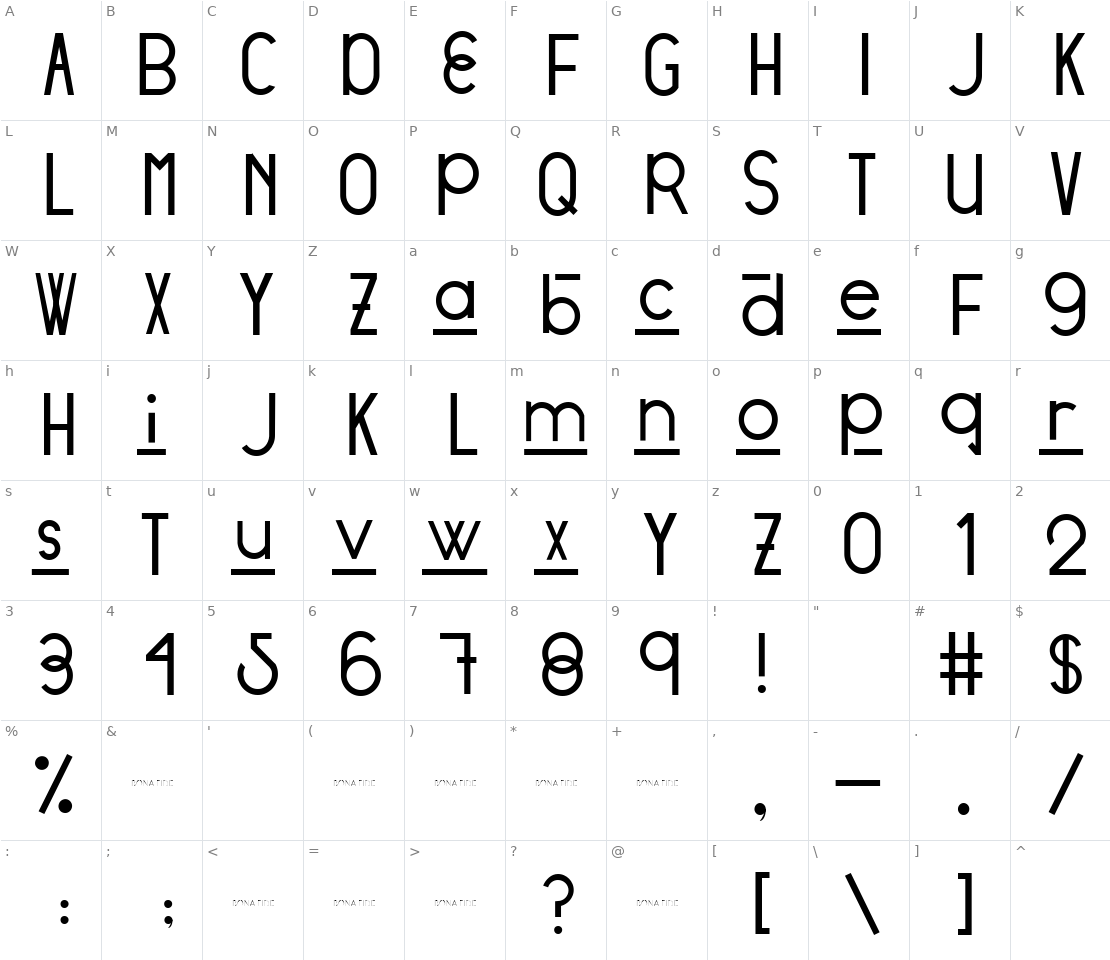
Stratford Sans
Stratford Sans is a geometric display face from bonafidecraft that pairs angular, uppercase letterforms with unexpected quirky details, giving it a personality that sits somewhere between structured and experimental. The modern framework holds together, but individual characters take small liberties with proportion and angle that keep things visually interesting. Best at headline sizes for branding, posters, or editorial work where you want clean geometry with a little weirdness baked in.